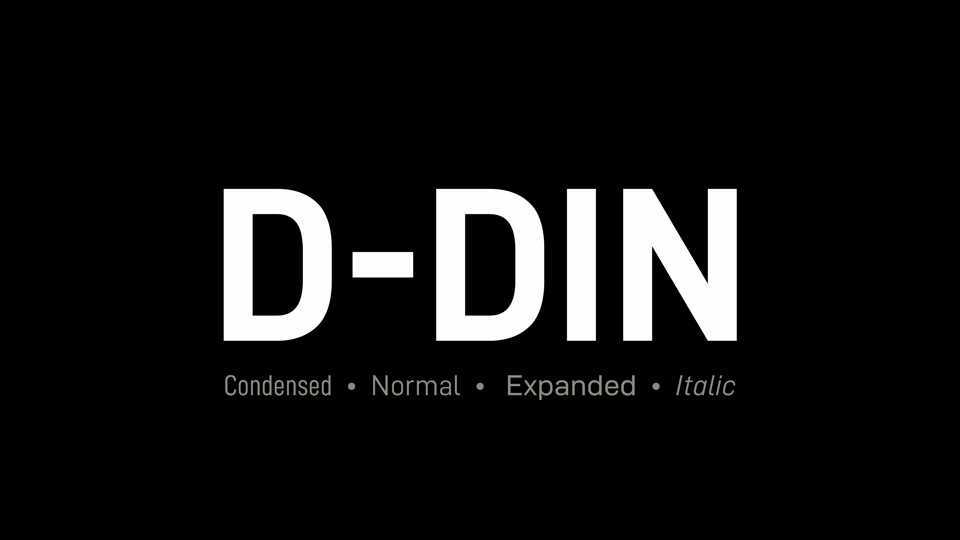
Download D-DIN typeface, a sans serif font family in 7 styles, based on the design of DIN typeface that was widely used for traffic, administrative and technical applications.
Designer: Datto